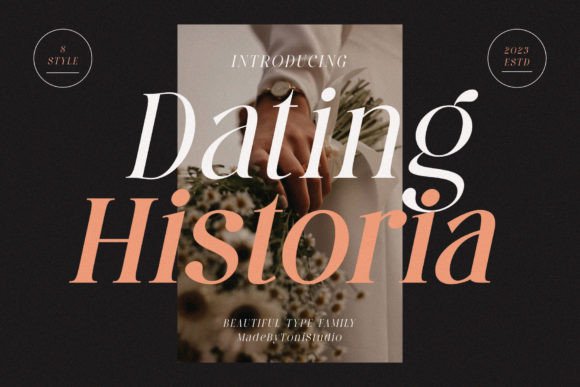
Indulge in the captivating allure of Dating Historia, a serif font family that dances gracefully across your designs with its sweeping curves and exquisite serifs. This typographic masterpiece is crafted to evoke an air of timeless elegance and unwavering sophistication, making it a perfect companion for upscale branding and projects that yearn for a touch of classic charm.
Dating Historia's gentle curves and pristine lines invite you on a journey of visual delight, whispering tales of sophistication and refinement. Its carefully engineered condensed forms grant you the creative freedom to craft captivating headlines, mesmerizing logos, and alluring marketing materials that will leave an indelible mark on your audience.
Step into a world of boundless creativity, where Dating Historia transforms ordinary text into an extraordinary symphony of visual aesthetics. Its innate versatility seamlessly adapts to a myriad of design styles, from the effortlessly chic to the boldly dramatic. Whether you're crafting elegant invitations, captivating social media posts, or eye-catching website designs, Dating Historia will effortlessly elevate your creations to new heights of sophistication.
Envision your words dancing gracefully across the page, adorned with the timeless charm of Dating Historia. Picture the admiration of your audience as they behold your designs, captivated by the subtle nuances and undeniable allure of this typographic masterpiece. Let Dating Historia ignite the spark of inspiration within you, empowering you to create designs that transcend the ordinary and leave an everlasting impression on the hearts and minds of your audience.